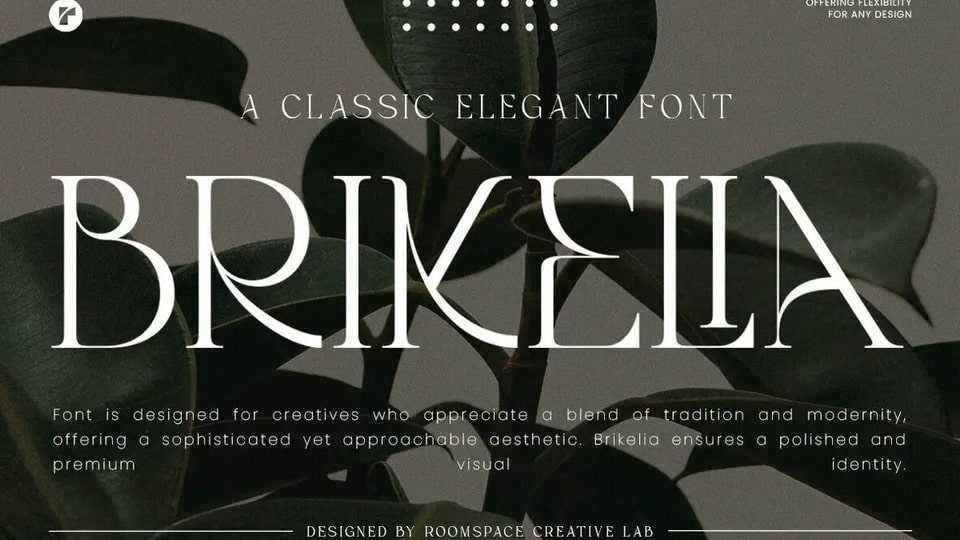
Download Brikelia font, a modern minimalist typeface designed to elevate your creative projects. With clean lines and a sleek look, it’s perfect for adding a touch of style to any design.